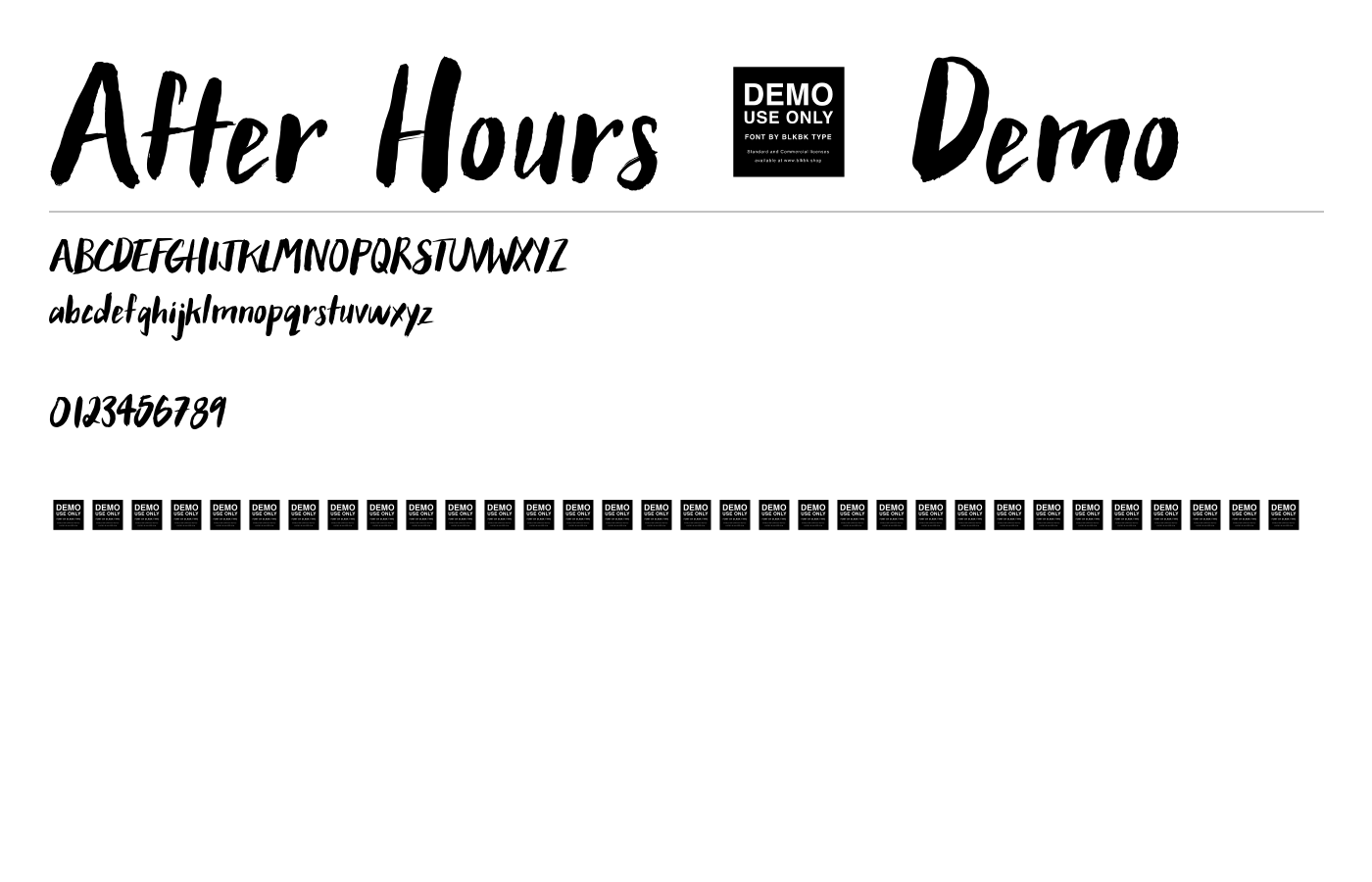
After Hours is a playful and expressive brush script font with a casual, hand-painted feel. Its slightly irregular strokes and moderate contrast give it an energetic and personal touch, making it ideal for creative branding, invitations, and lifestyle projects where a lively and approachable style is desired. This font works great in headlines and display uses, adding a warm and artistic flair without sacrificing readability.
After Hours - Demo Font
About After Hours - Demo Font